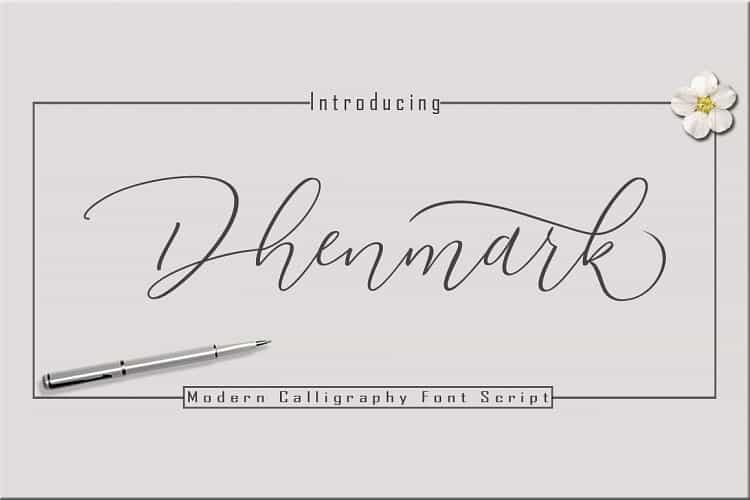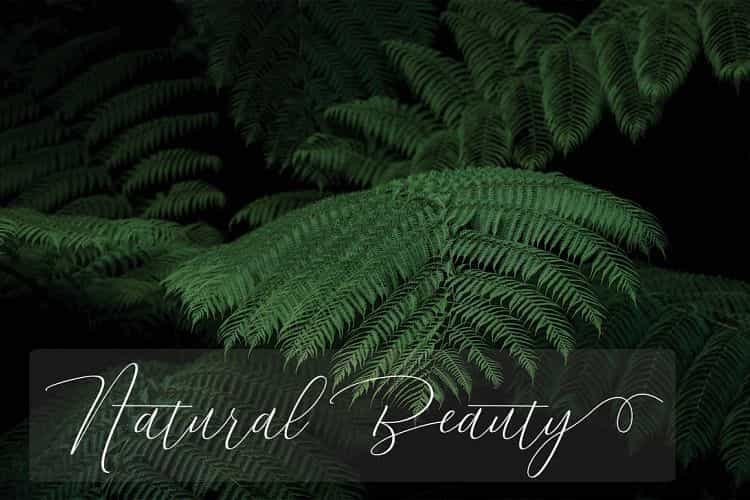
Dhenmark Font Duo is a modern calligraphy font. The font was created by handwriting, and it has a modern and unique forms of calligraphy, the writing style is very natural. The Dhenmark Font Duo has a very distinct style of calligraphy, it is very appropriate for the work of the modern design.